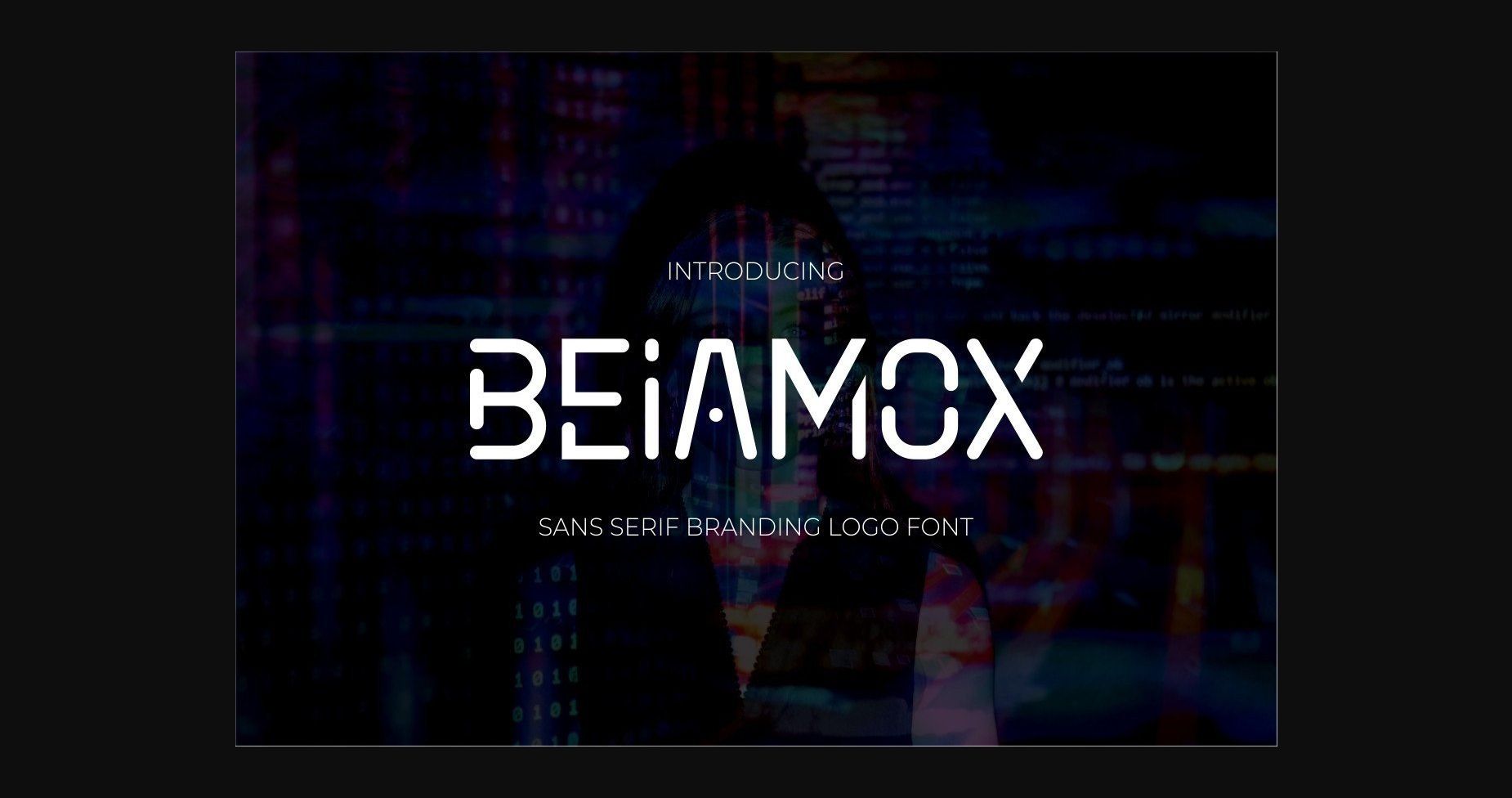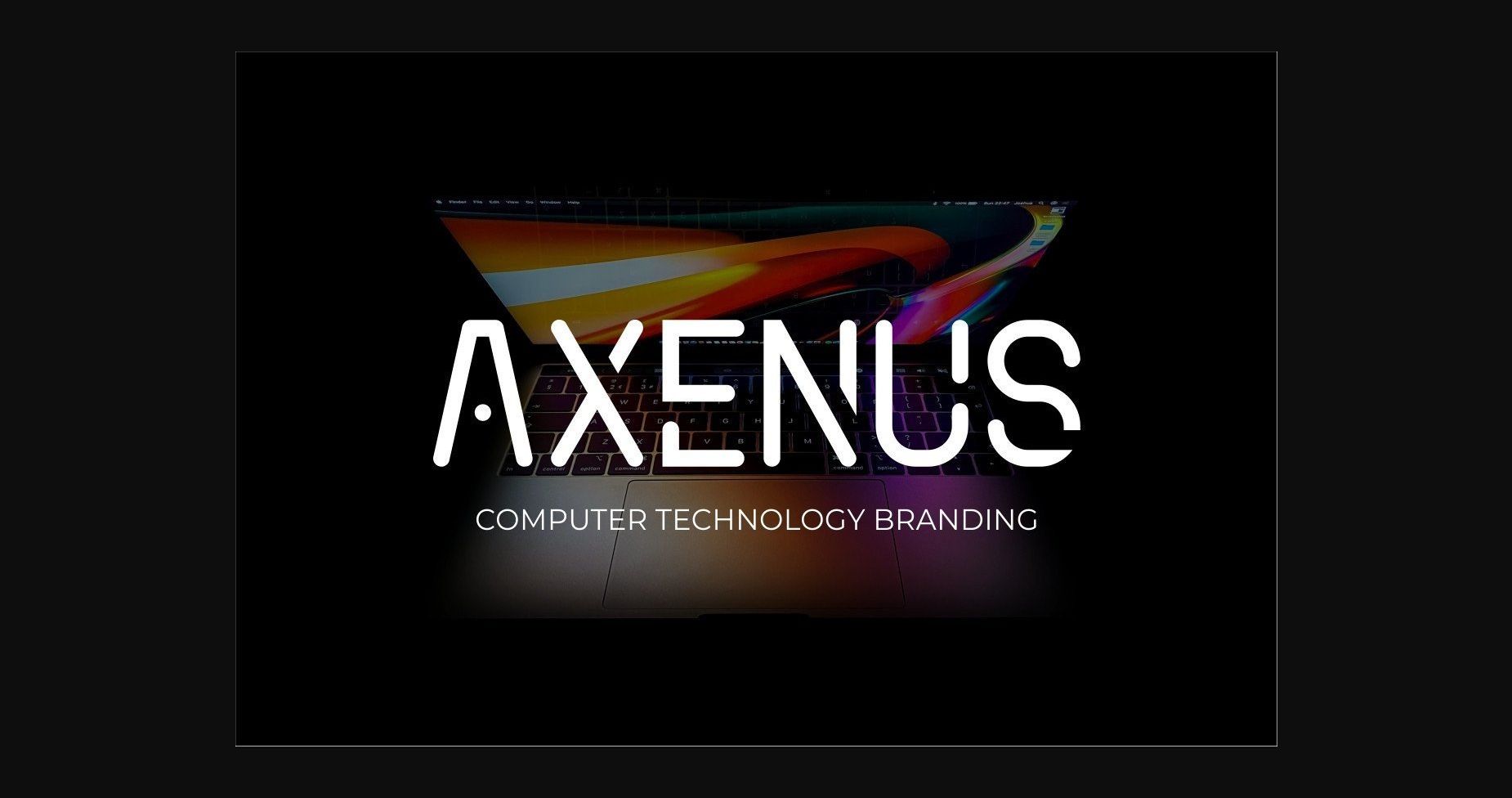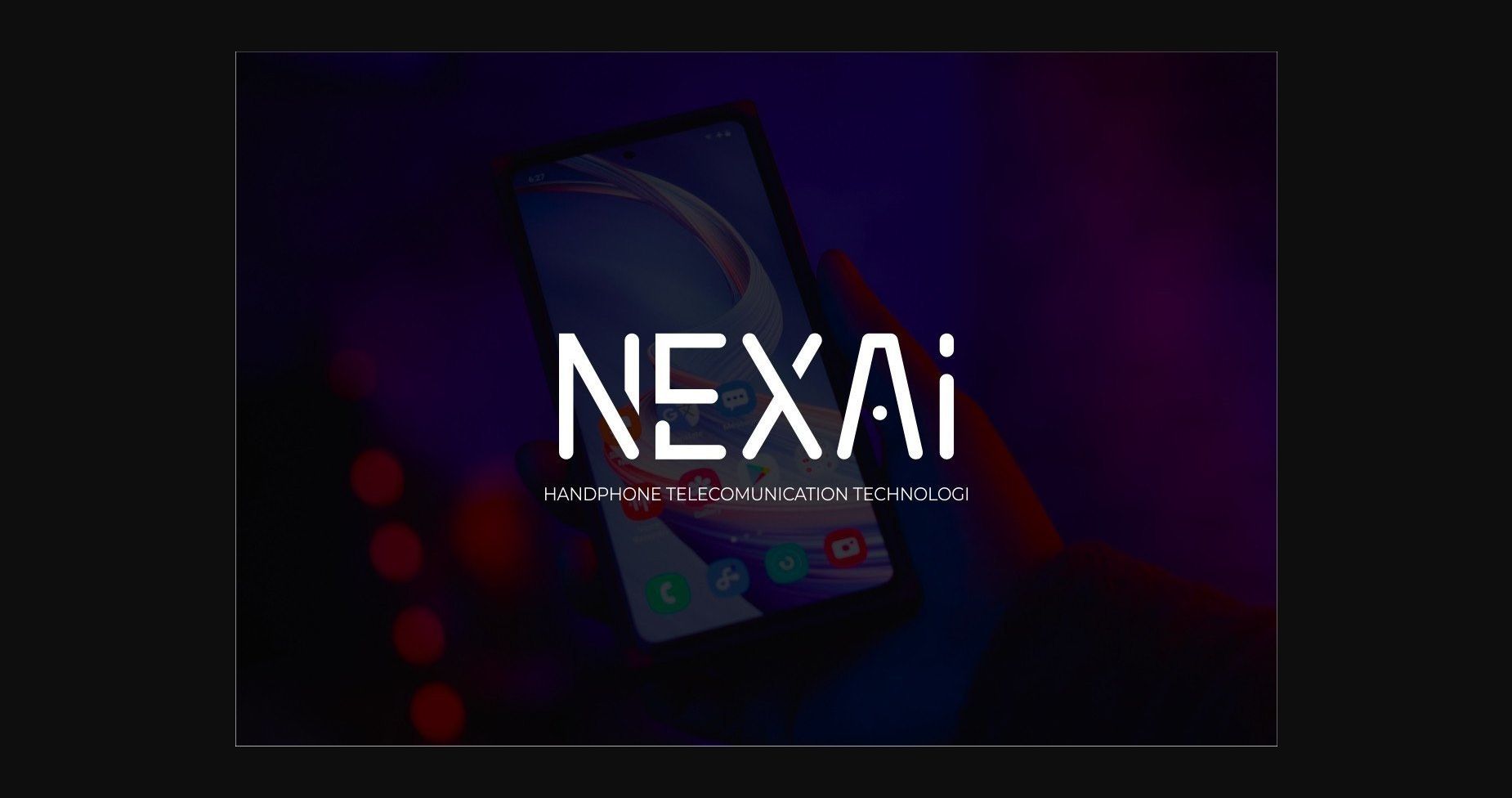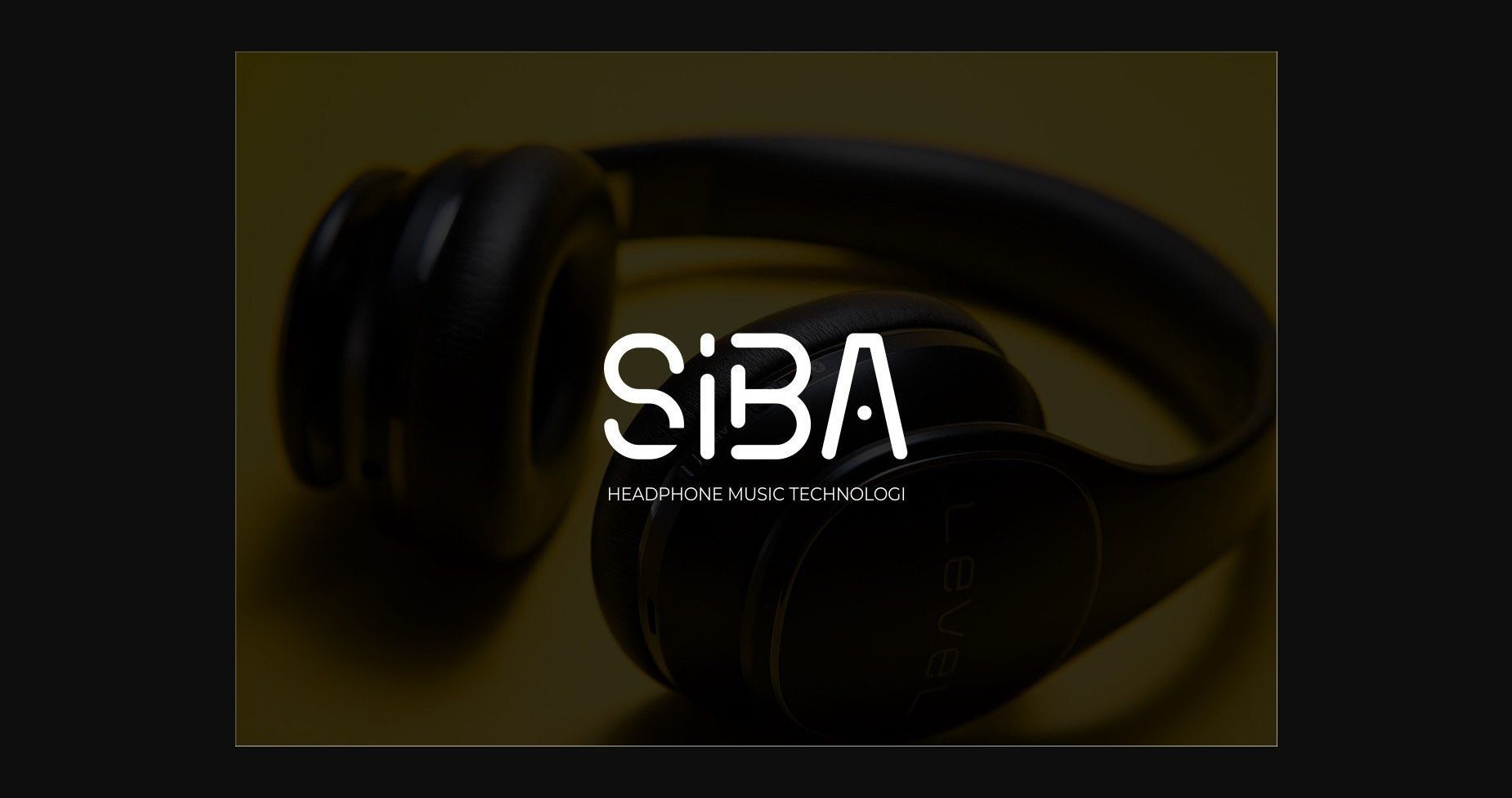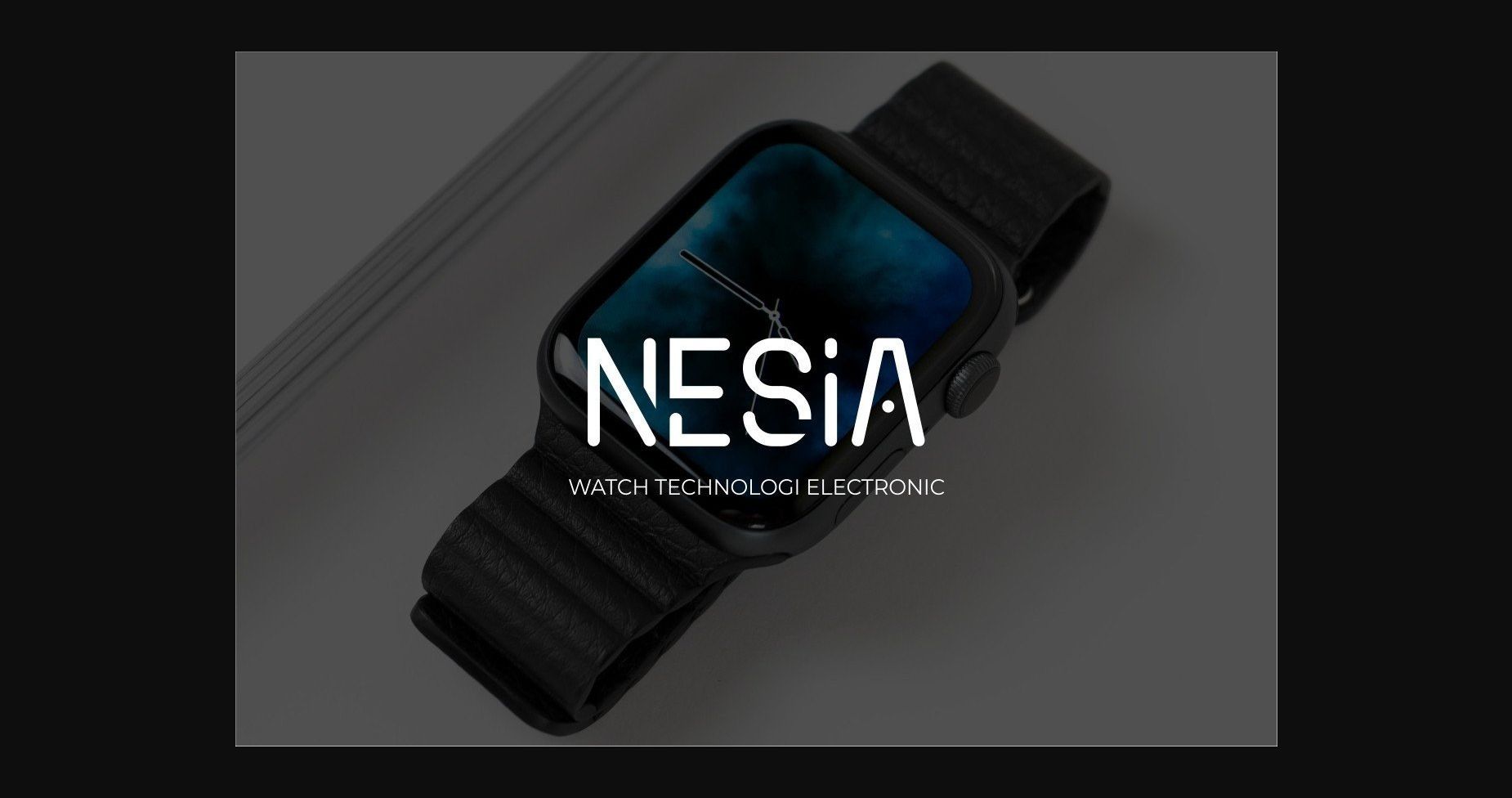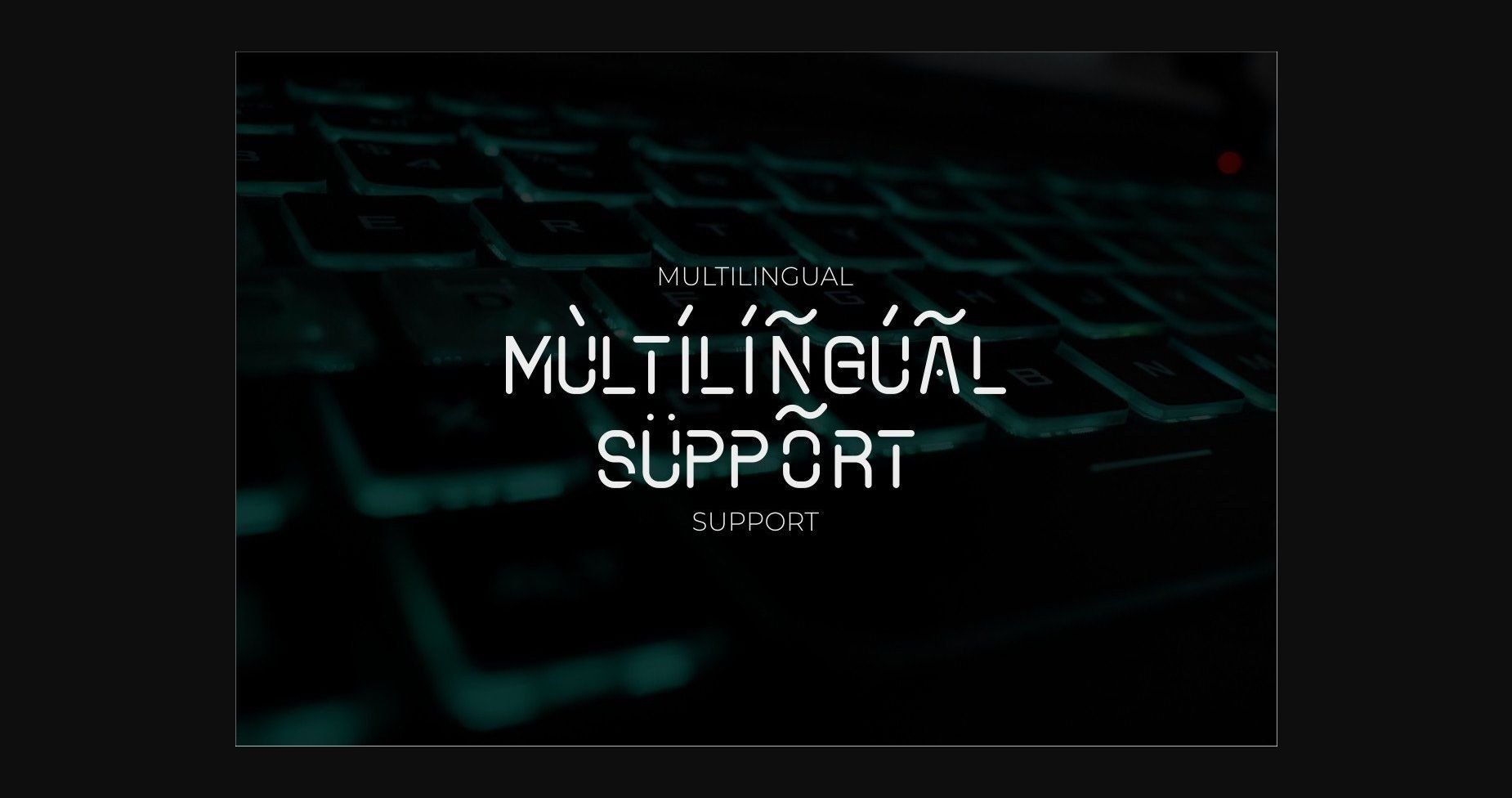
Beiamox Font
About Beiamox Font
Beiamox is a modern and futuristic sans serif font. Add it confidently to your projects, and you will love the results.